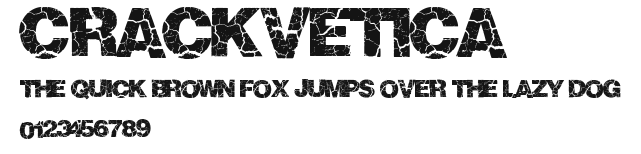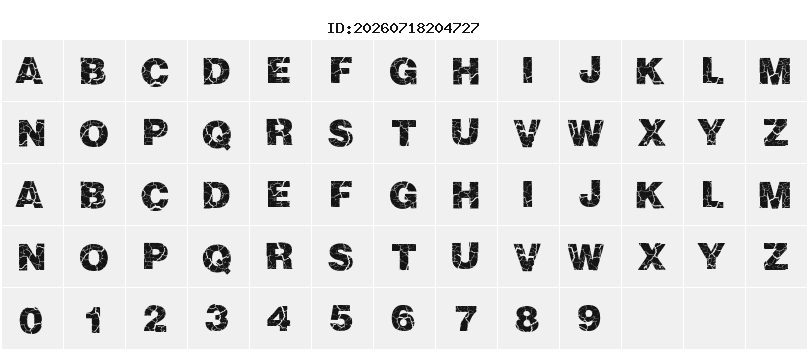
• Font Name: Crackvetica
• Full Font Name: Crackvetica
• Designer: max infeld
• Manufacturer: xerographer.com
• Description: made in ojai
About Crackvetica.ttf
Crackvetica.ttf is a modern, elegant sans-serif font designed for ultimate readability and visual harmony. Perfect for branding, headlines, web design, and print materials.